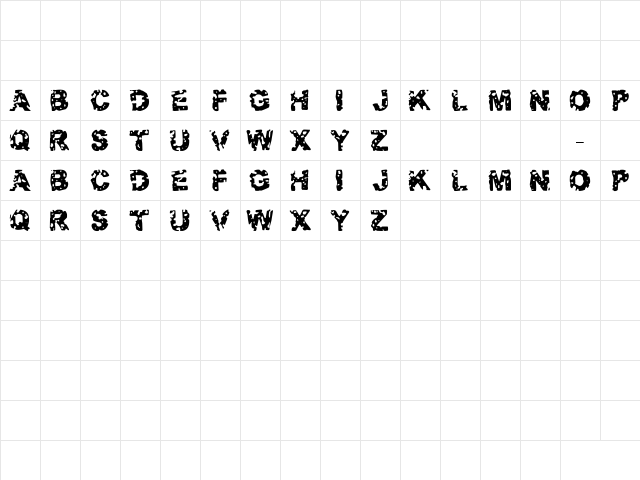
Target Practice Regular
Design Context for Target Practice Typeface
Target Practice is a composed and adaptable typeface that performs quietly and consistently across a wide range of design contexts.